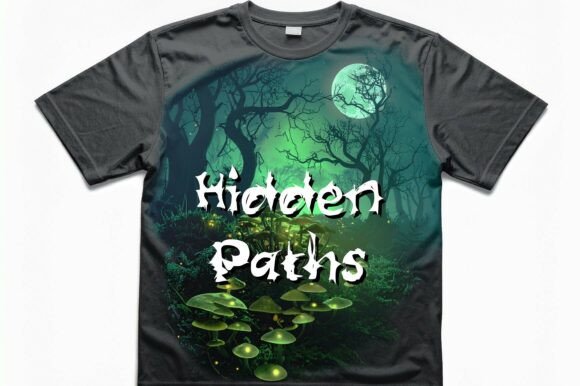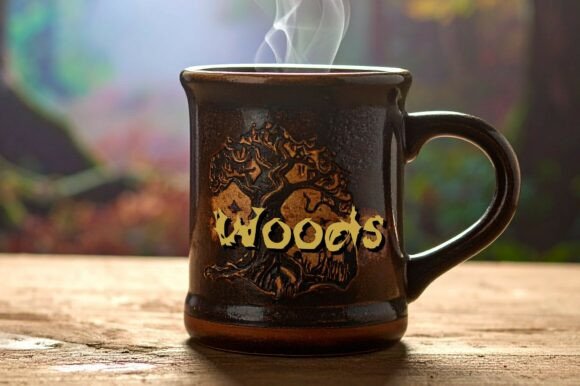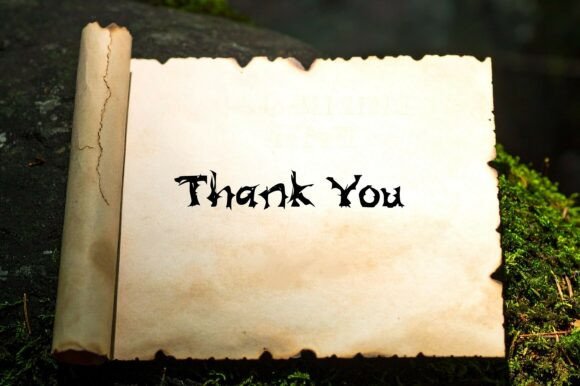
Unleashing the Power of the Bat: Discover the Batman Robinson Font
Have you ever found yourself huddled in a darkened room, the only sound the soft glow of a computer screen as you pour over a comic book or graphic novel? The words leap off the page, transporting you to a world of mystery and adventure. For designers and artists, capturing that same sense of excitement and intrigue is key to creating memorable visual experiences.
Enter the Batman Robinson Font, a bold and dramatic display font that perfectly captures the essence of classic heroic tales. With its rugged, brush-stroke inspired letters, this unique typeface is ideal for projects that demand a powerful visual presence, from striking movie posters to captivating book covers and edgy album art.
The Batman Robinson Font is a valuable addition to any designer’s toolkit, offering a versatile choice for creating dynamic visual experiences that leave a lasting impression. With its strong character and evocative style, this font is sure to add an unmistakable flair of excitement and intrigue to any project.
Batman Robinson Font Key Features
- Font Style: Script, Brush, Handwritten
- Unique Characteristics: Distressed, Grungy, and Vintage-inspired design
Designer Review: Batman Robinson Font
Overall, I have mixed feelings about the Batman Robinson Font. While it’s an interesting take on the classic superhero font, it’s not without its flaws.
- ✨ Unique blend of classic and modern elements: The Batman Robinson Font seamlessly combines the traditional feel of the original Batman logo with modern sans-serif elements, resulting in a visually appealing and unique design.
- ✨ Versatility: This font is suitable for a wide range of projects, from comic book covers to movie posters, and even branding materials.
- ✨ Customizable: The font comes with various weights and styles, allowing designers to experiment with different looks and feels.
- ⚠️ Lack of legibility: In some instances, the font’s intricate details and bold lines can make it difficult to read, especially at smaller sizes.
- ⚠️ Overuse of the “superhero” look: The font’s bold, graphic style may be overused in some designs, resulting in a lack of originality.
- ⚠️ Limited support for non-Latin scripts: Unfortunately, the font does not support non-Latin scripts, which may limit its use in international projects.
Overall, I think the Batman Robinson Font has potential, but it requires careful consideration and handling to get the most out of it. With some thoughtful design decisions, this font can add a unique touch to a project. However, it’s not a one-size-fits-all solution, and designers should be aware of its limitations before using it.
Tip: Use the Batman Robinson Font for headings and titles to add a touch of sophistication and elegance to your design.
Tip: Use the Batman Robinson Font for typography-heavy designs, such as posters or brochures.
Tip: Use the Batman Robinson Font for headings and titles to add a touch of sophistication and elegance to your presentation or document.
The Batman Robinson Font is ideal for:
- Typography-heavy designs, such as posters and brochures.
- Headings and titles for presentations and documents.
- Adding a touch of sophistication and elegance to your design.